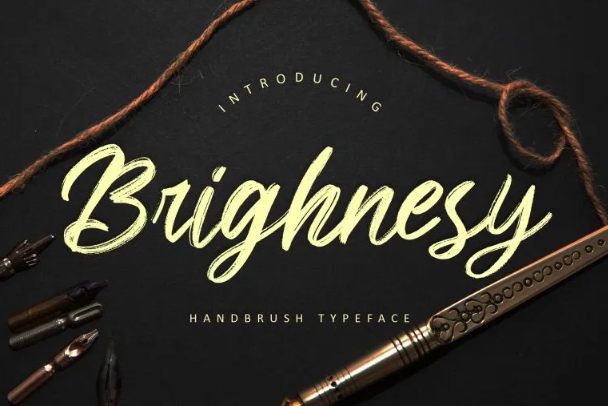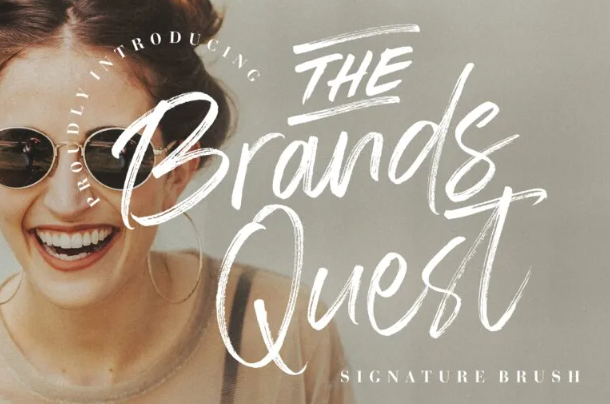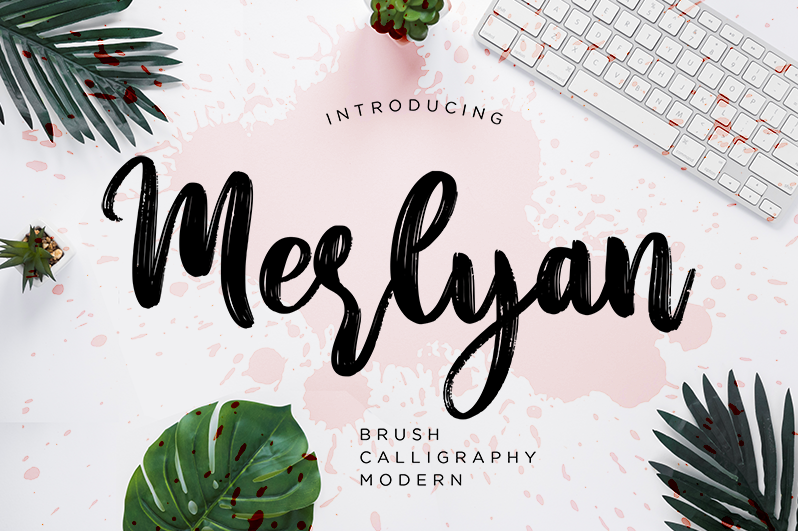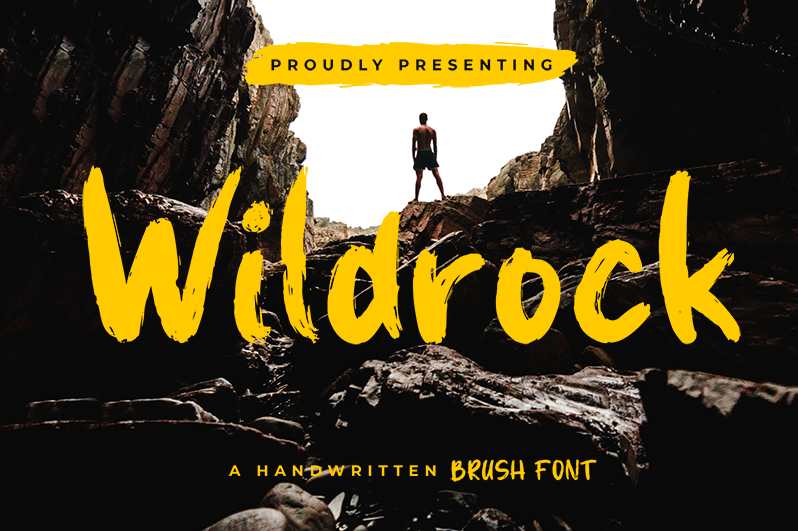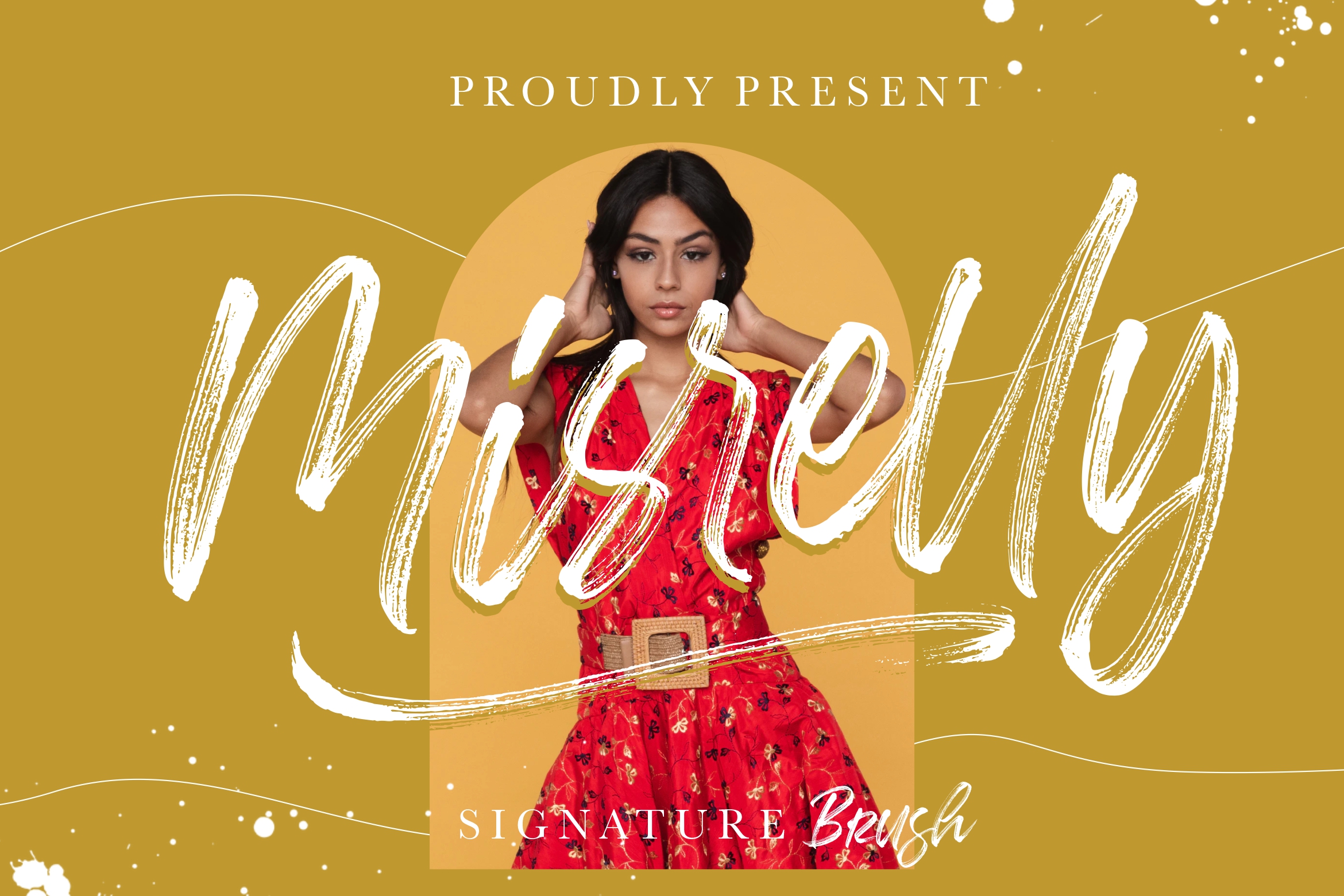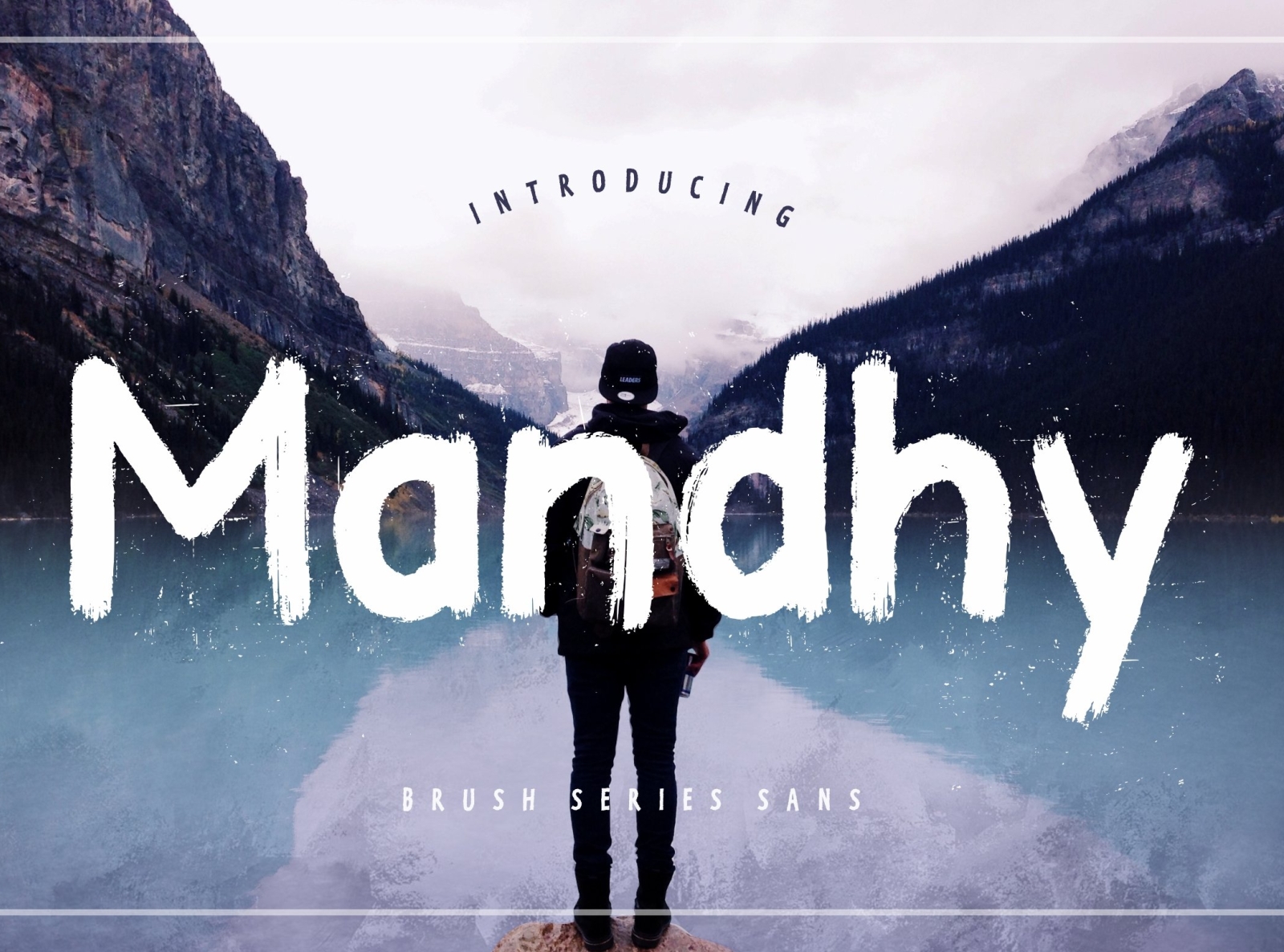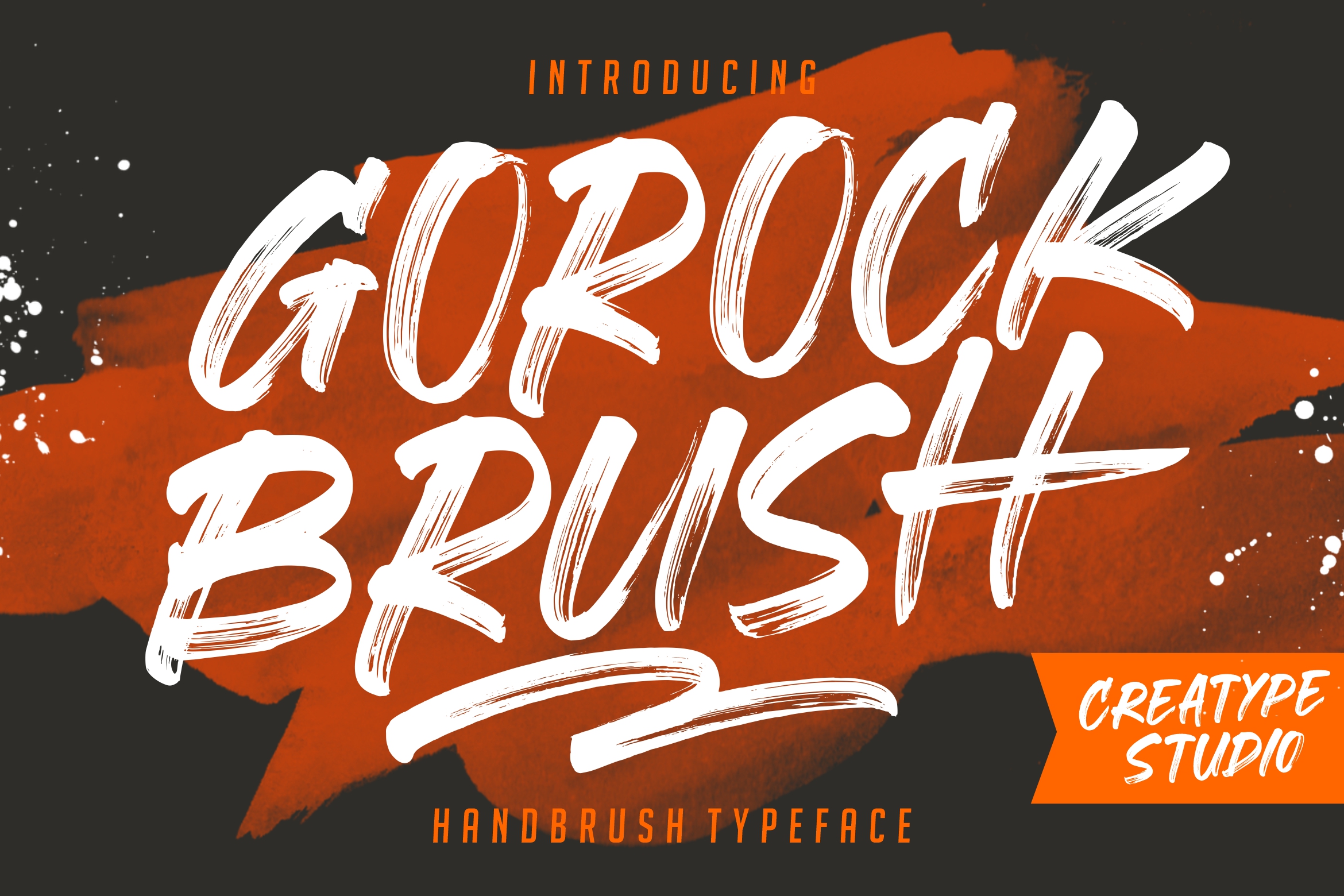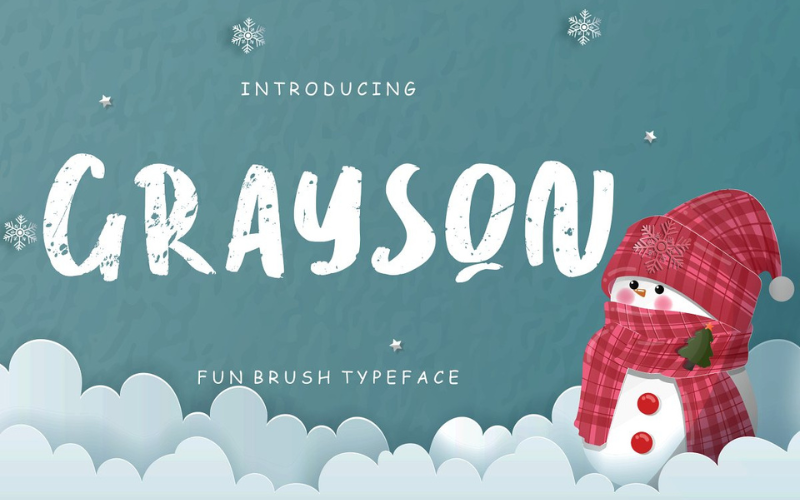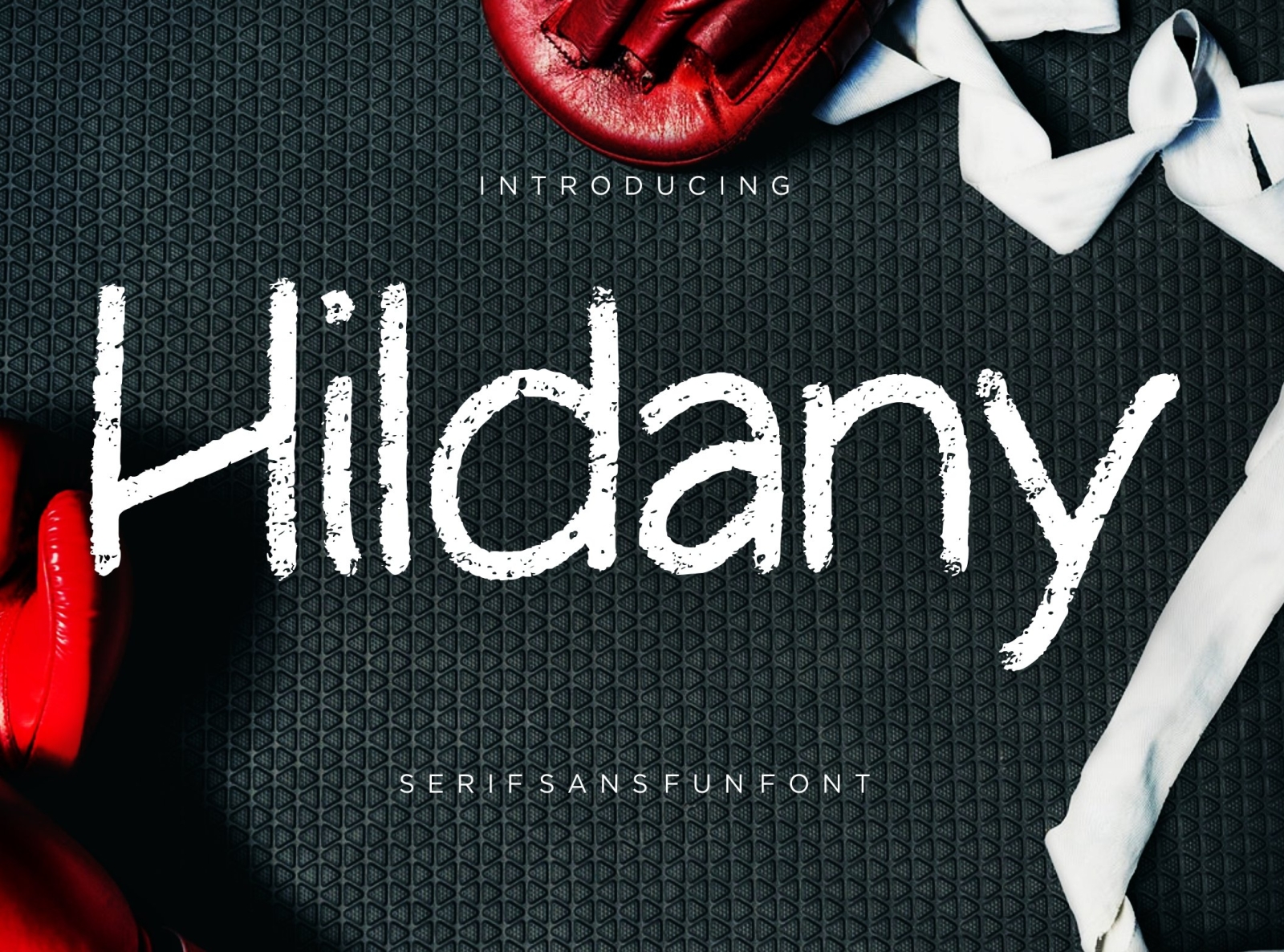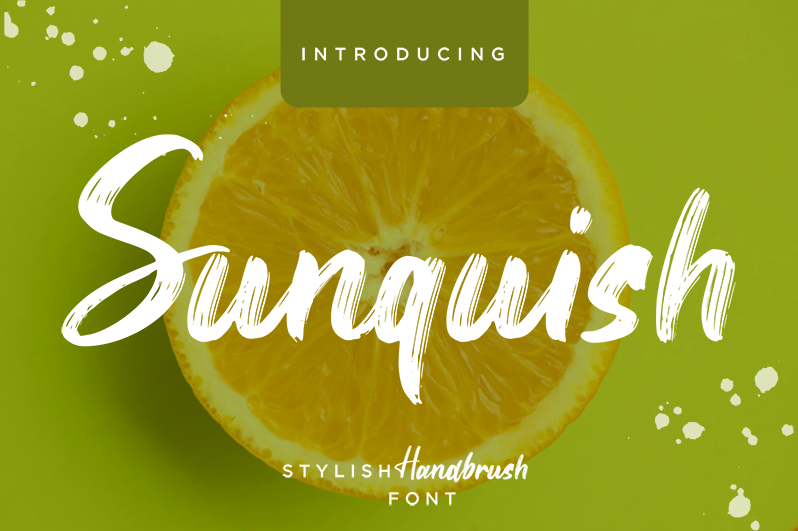
Watercolor Font: 15+ Vibrant Fonts for an Artistic Branding
Watercolor Font 15+ Vibrant Fonts for an Artistic Branding
A watercolor font is a decent choice to make your brand look more creative and expressive. Many watercolor fonts have brush or script-like styles to add some handcrafted feel. Moreover, a watercolor-like font can evoke various atmospheres. Thus, you can highlight any expression you want to share in your projects.
16 Stunning Watercolor Font Choices for Designer
1. Brighnesy
Brighnesy font, the water-color font
Add Brighnesy font to give your branding and marketing materials a classic and elegant touch. With its brush-like strokes, your overall design will look natural with paint or watercolor themes.
2. Mandhy
Brush-like font, Mandhy font
Mandhy font has upright strokes with brushy texture which makes the design look artistic. Additionally, the font will look great in watercolor or ink effect. You can employ this font in headers, posters, or social media posts for an eye-catchy branding  element.
3. Gorock
Hard brush font, Gorock font
Gorock font has the natural quality of the brush style. Plus, it has various ligatures and swashes to improve the charm. Thus, this font matches the paint-themed design.
4. Grayson
the Grayson font
Grayson font will be a perfect choice If you want a watercolor font that blends with a fun and playful theme. The characters have textured effects that can fit in a painting or watercolor design. On top of that, the fun design of the font will be suitable for children or kindergarten design products.
5. Hildany
the preview of Hildany font
Hildany font has solid strokes with a grainy texture similar to chalk or stamp effect. However, it is still a match for painting style design. Thus, the overall design will look more casual yet modern.
6. Jattayu
the preview of Jattayu font
Jattayu font is a rough brush font to boost your design. Its catchy design will be a decent option for numerous design projects, such as merchandise, labels, watermarks, and invitations.
7. Sunquish
Sunquish brush font
The next watercolor paint font is Sunquish font which has distinguished texture and neat spacing. As a result, the font is suitable for evoking an elegant and fresh atmosphere.
8. The Brown Fox
The Brown  Fox brush font
The Brown Fox font has a simple design. However, its simplicity highlights modern and outstanding vibes for your brand. Explore the font utilization for various projects, like posters, labels, or product packaging.
9. Samanthy
The elegant brush font, Samanthy font
Samanthy font is an elegant font with astounding loops and swashes. This font can be a perfect match to highlight watercolor or painting themes in your projects. The refined shape of the font will make your project feel more intimate.
10. Kayooh
Japanese-style brush, Kayooh font
If you want to make a Japanese-style design, the Kayooh font will complement your project. This font will exude a Japanese vibe to your work. Thus, you can create some Japanese watercolor designs with this font.
11. The Brand Quest
A fancy brush font, The Brand Quest font
This brush font is charming and fancy. The brush strokes look natural. In general, the Brand Quest font would fit invitations, school projects, and quotes, and design with feminine and warm mood or tone, including design in watercolor theme.
12. Merlyan
Merlyan brush font
The following watercolor font is Merlyan font. This font has a distinct texture that looks like a brush shape. Although the typeform seems untidy, it makes the design look like an actual natural handwriting. Therefore, this font will suit casual and fun design projects.
13. Byonlhy
The water-color brush font, Byonlhy font
Byonlhy font employs a robust design with its messy lines. As a result, the font has a vibe of bravery and masculinity. However, the delicate lines of this font could go well with a watercolor theme in your branding.
14. Wildrock
A Hard brush font, Wildrock font
The Wildrock font is a font that looks like watercolor since its characters’ shapes mimic the shape of the hard brush strokes. With that attribute, this font evokes freedom and power vibes. By using this font in your watercolor design, you can create a warm yet empowering message to your audience.
15. Misrelly
Misrelly, an elegant water color brush font
Give a feminine nature to your brand with Misrelly font! This font will heartily give a sense of peacefulness in your design. Thus, your brand will have a more personal and friendly look.